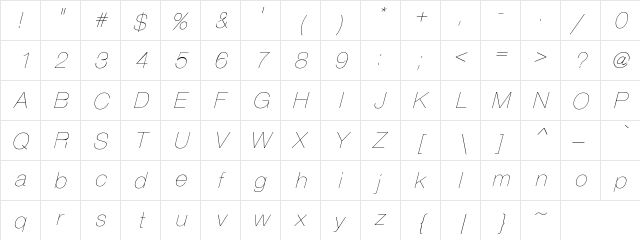
Bern Oblique Very Lite Regular
Design Context for Bern Oblique Very Lite Typeface
Bern Oblique Very Lite takes a measured approach to typography — its balanced proportions and neutral character make it a reliable workhorse for both digital and print work. The slanted form adds forward momentum and visual energy.